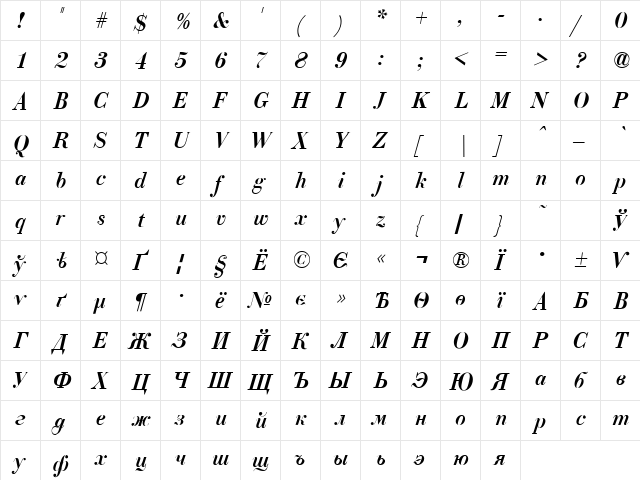
ELIZ_AZ_PS Italic
Design Context for ELIZ_AZ_PS Typeface
ELIZ_AZ_PS takes a measured approach to typography — its balanced proportions and neutral character make it a reliable workhorse for both digital and print work. The dynamic lean of this cut emphasises speed and emphasis in any layout.
Pro Tip: Try ELIZ_AZ_PS for annotation and caption copy alongside an upright companion — the contrast in angle creates a dynamic but ordered typographic system.